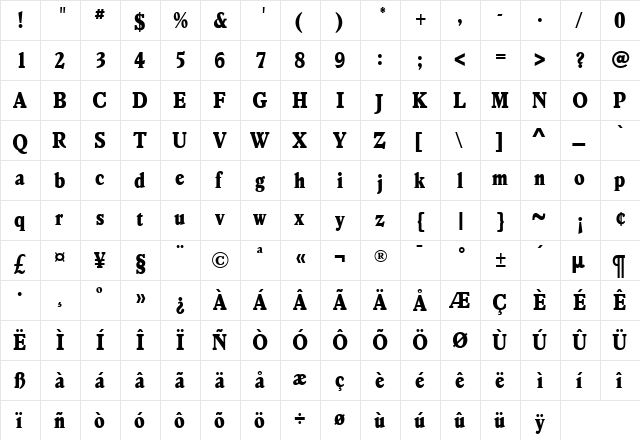
VeroneseExtraBoldCondensed Medium
Design Context for VeroneseExtraBoldCondensed Typeface
VeroneseExtraBoldCondensed is a composed and adaptable typeface that performs quietly and consistently across a wide range of design contexts. The heavy weight commands attention and anchors typographic hierarchies. The condensed width makes it efficient for tight spaces without sacrificing legibility.